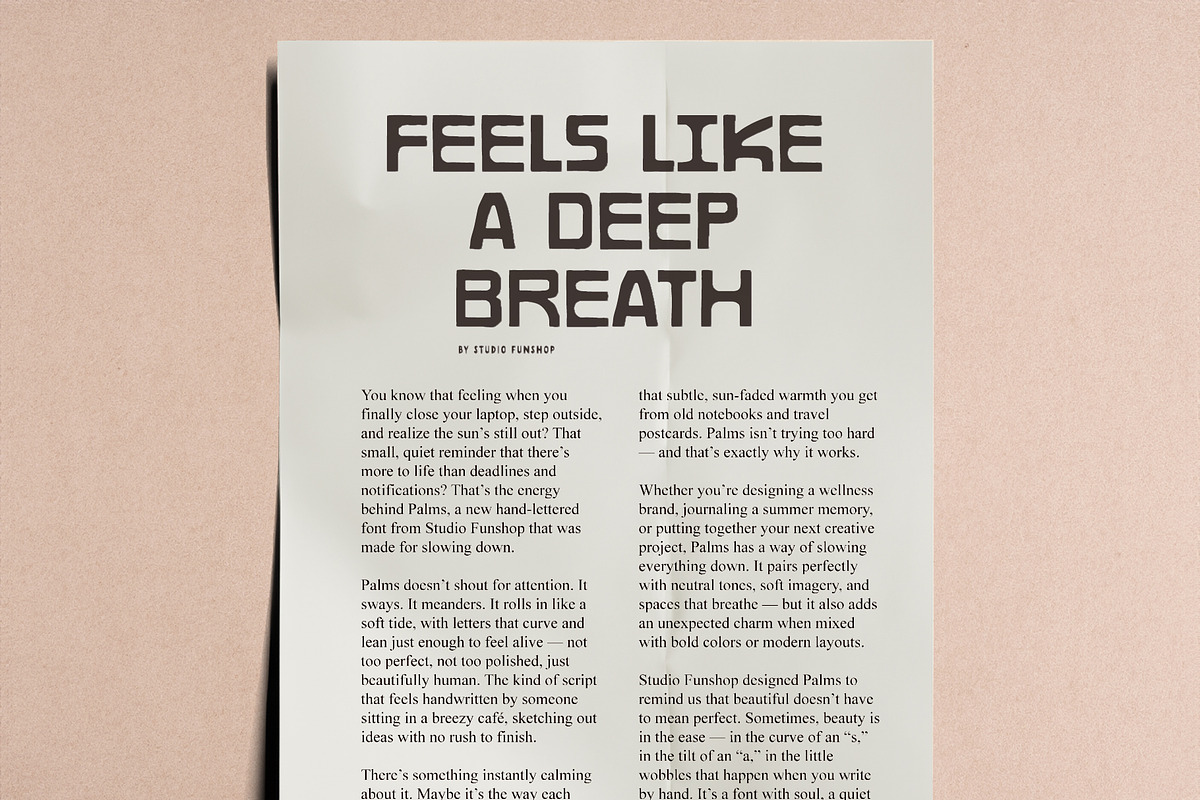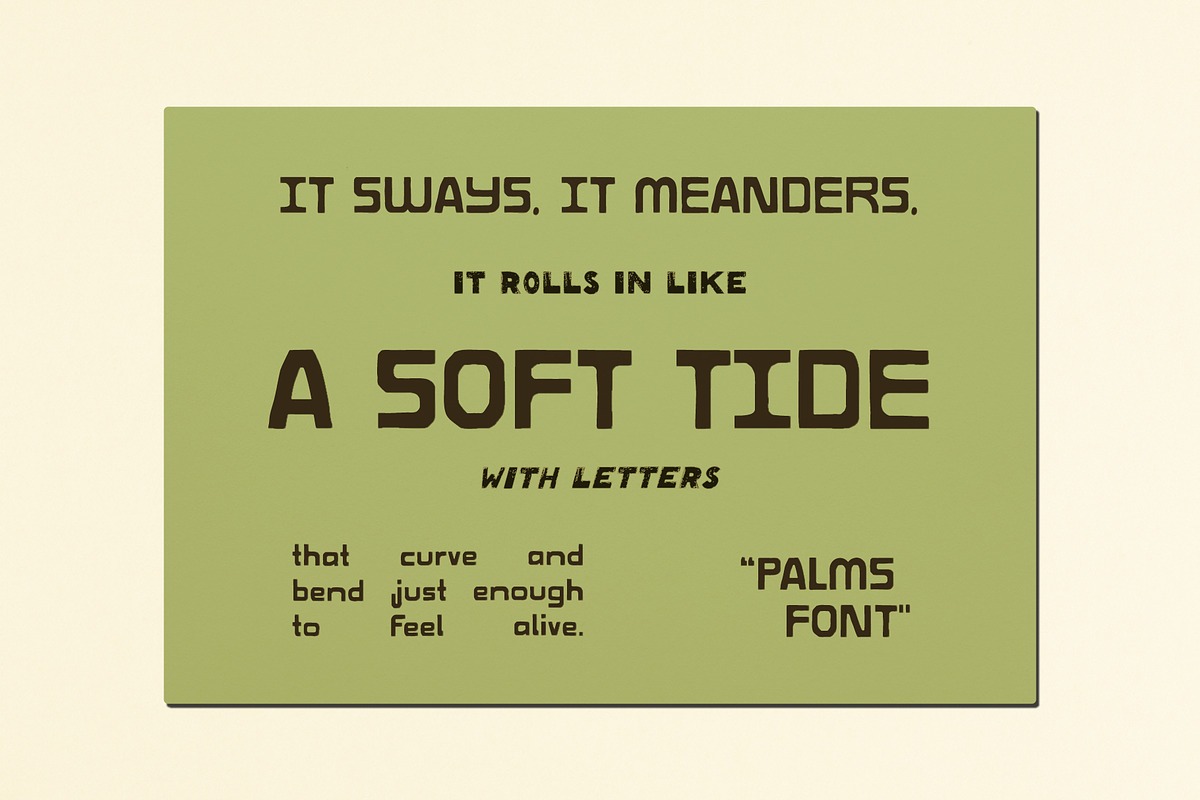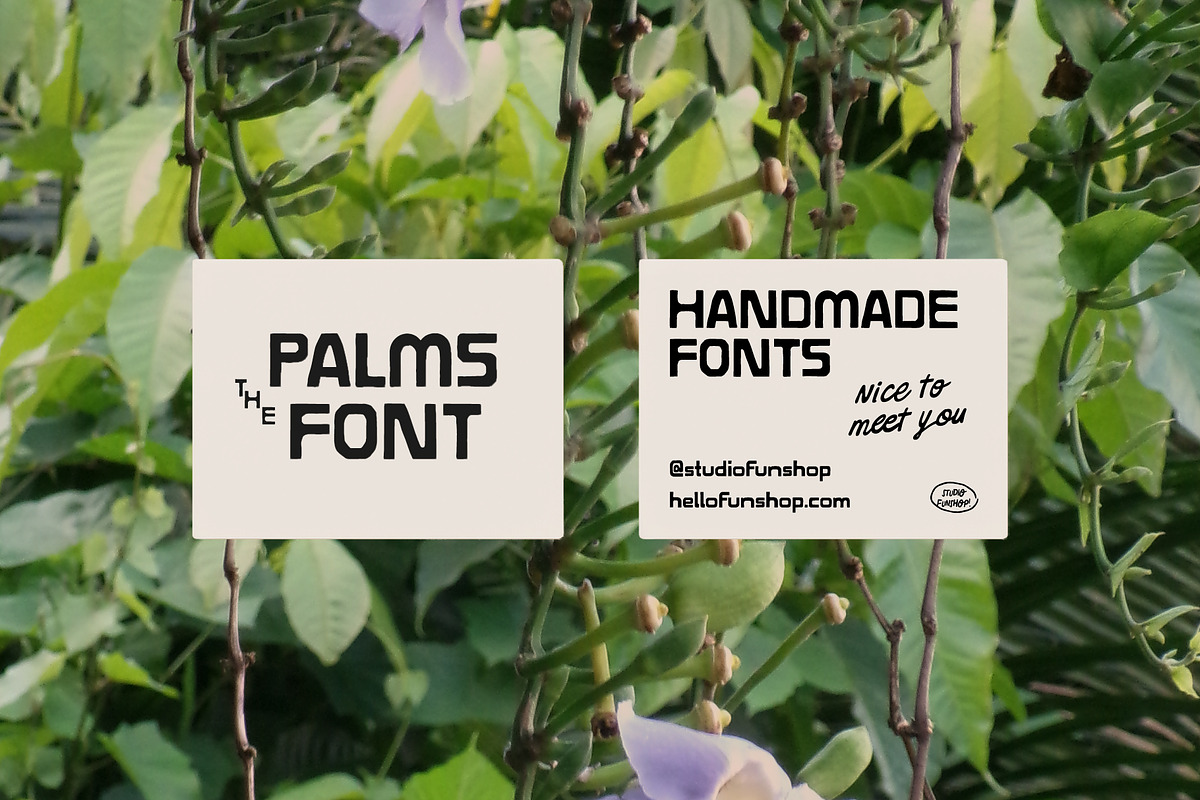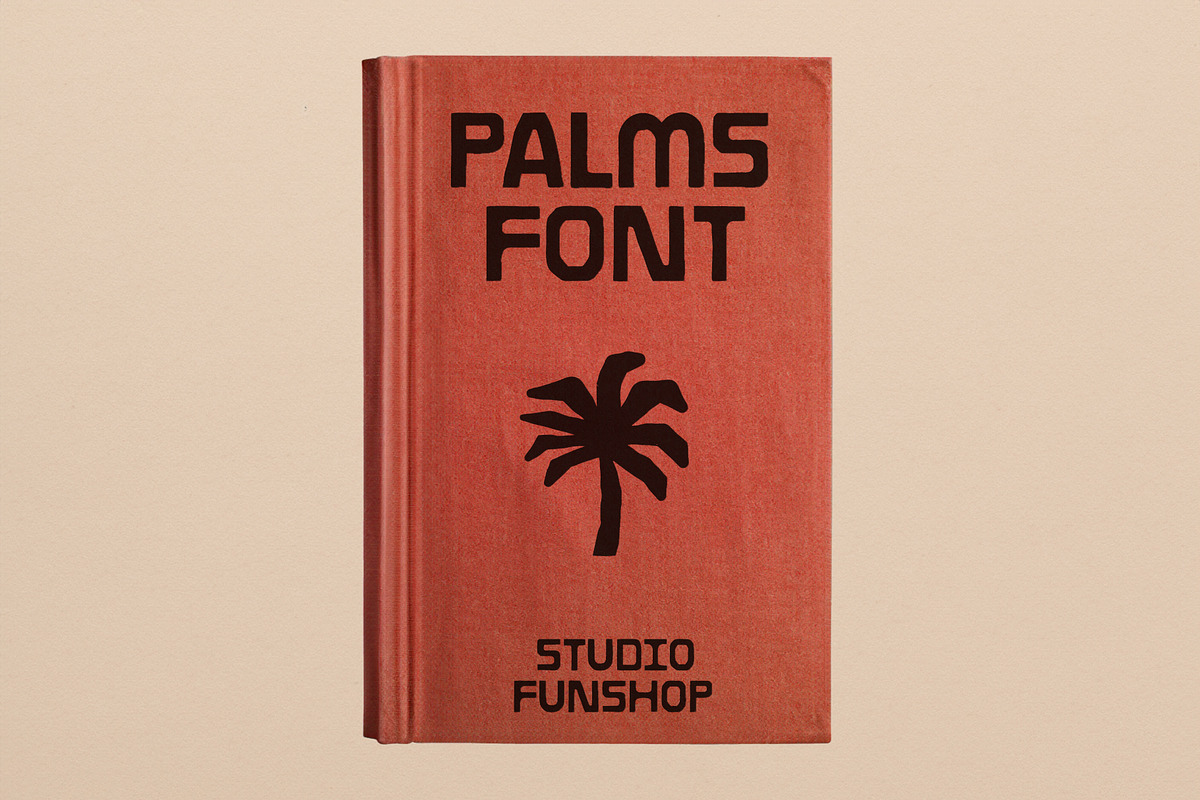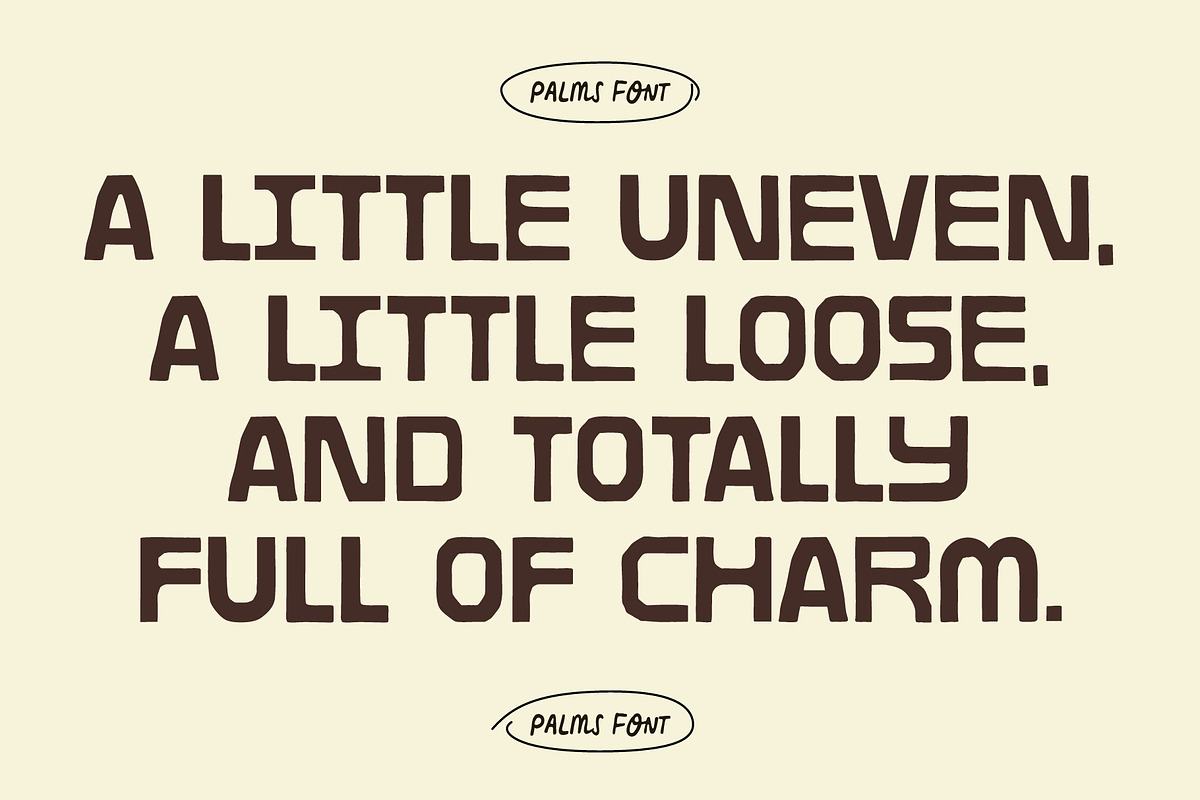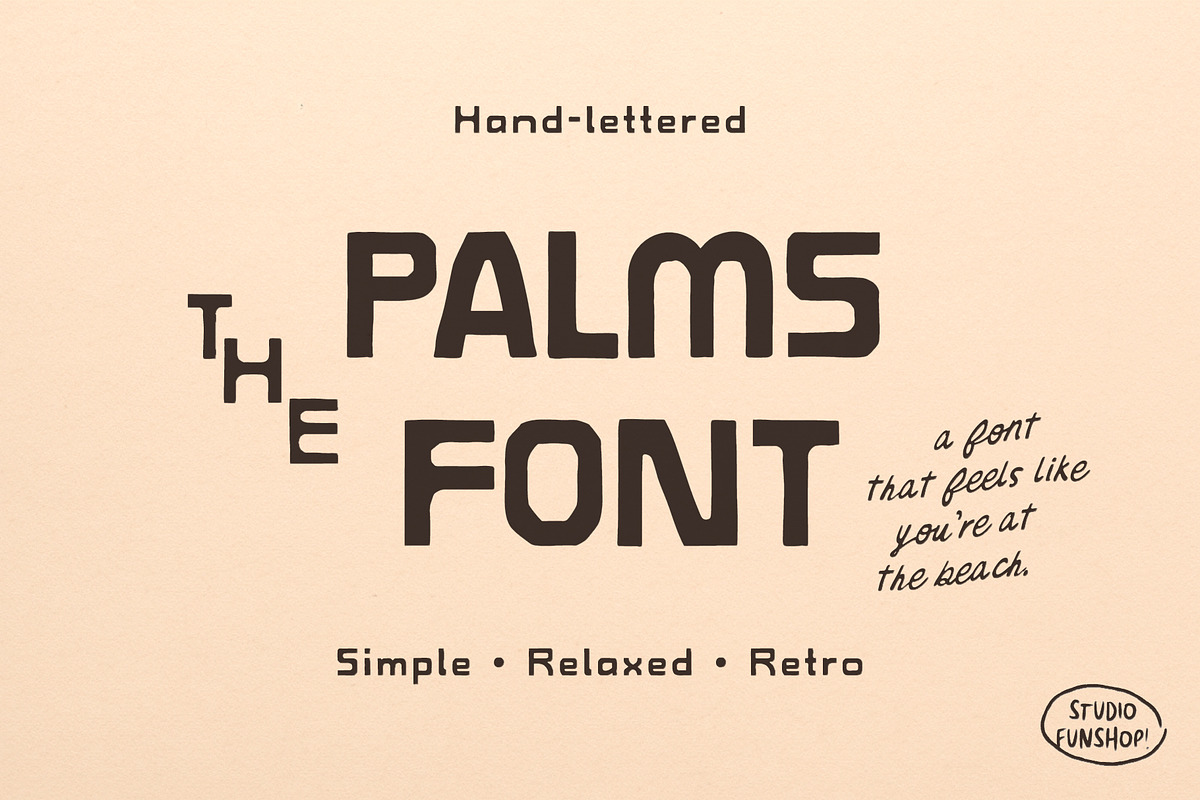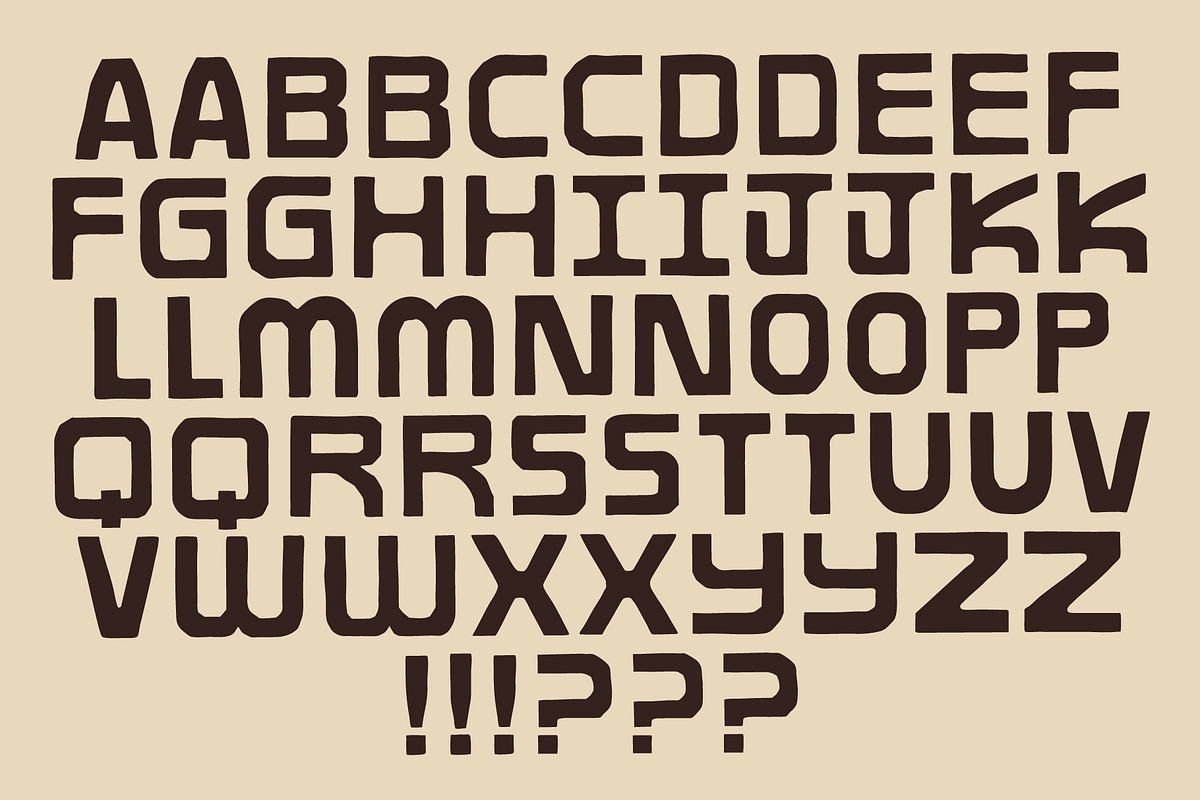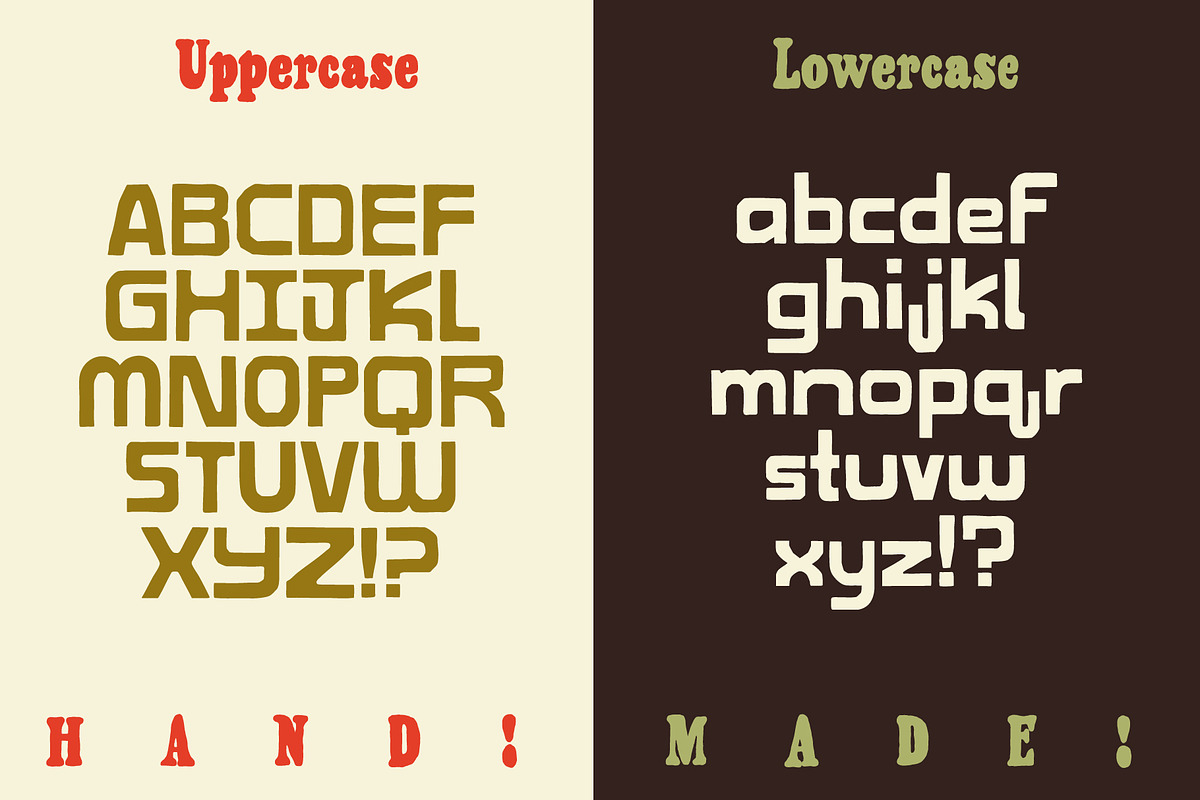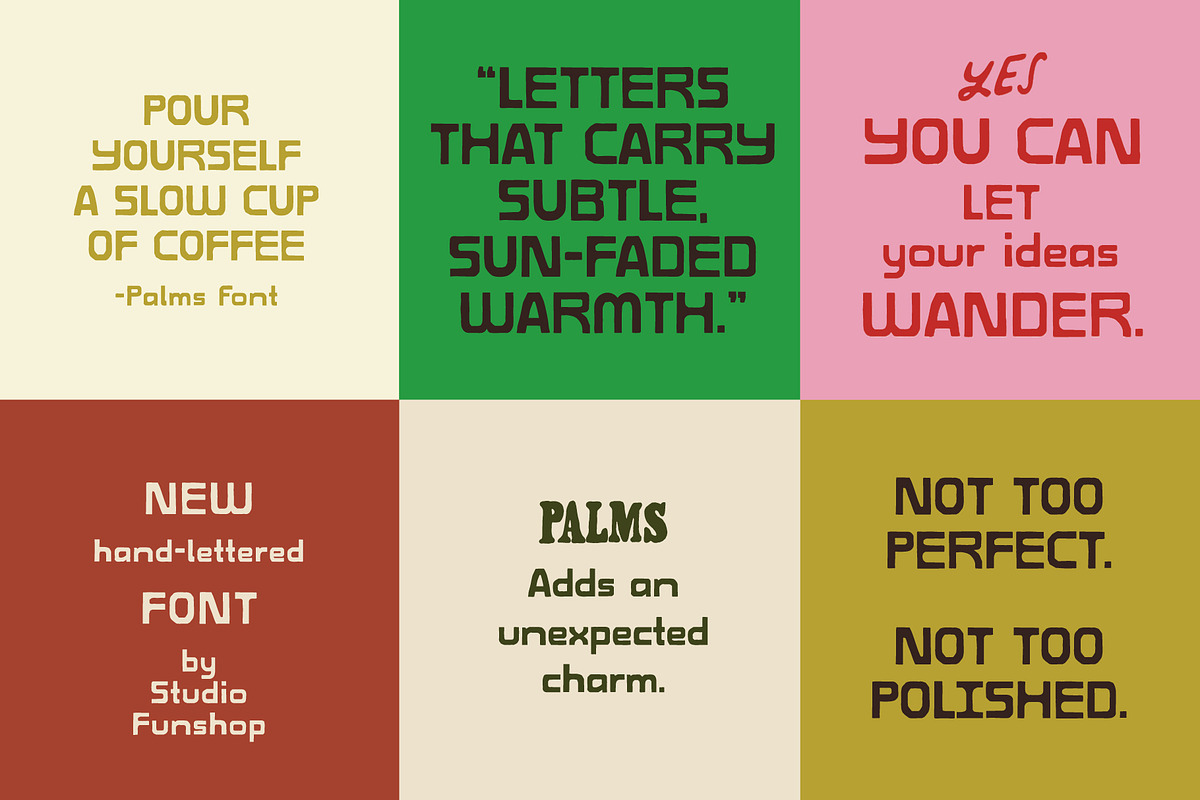
Palms - Handmade Retro Sans Serif
Palms is a hand-lettered font that's a little uneven, a little loose, and totally full of charm. Each letter was drawn by hand, giving it those small, natural inconsistencies that make type feel personal.
It takes inspiration from minimal, tropical vintage lettering like you’d see on old signage or worn travel prints. Simple, relaxed, and full of quiet character.
Palms works well for branding, packaging, quotes, or any project that could use a bit of approachable, slightly nostalgic, handmade warmth.